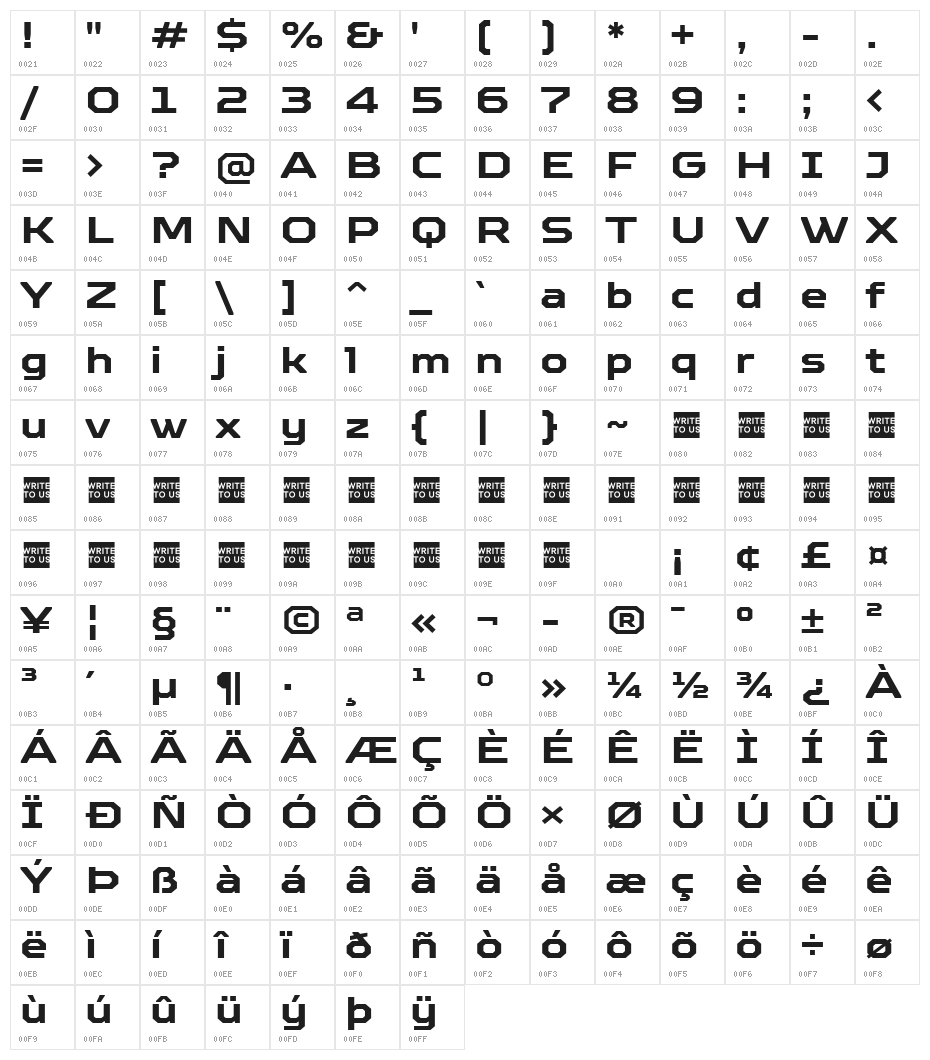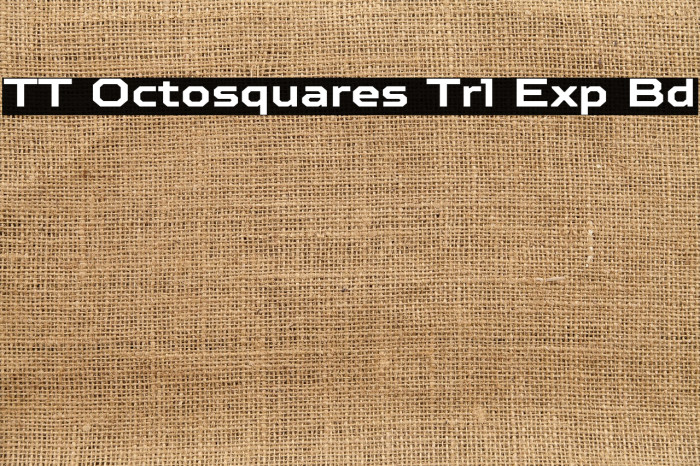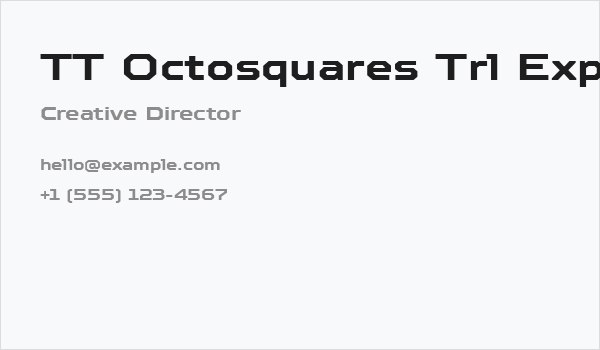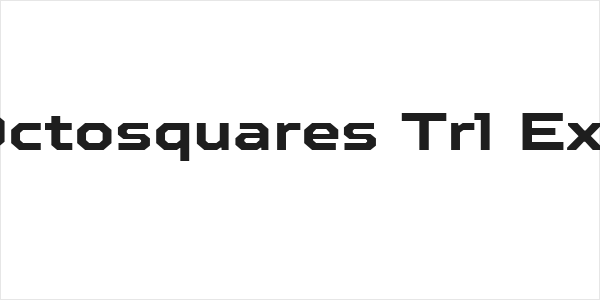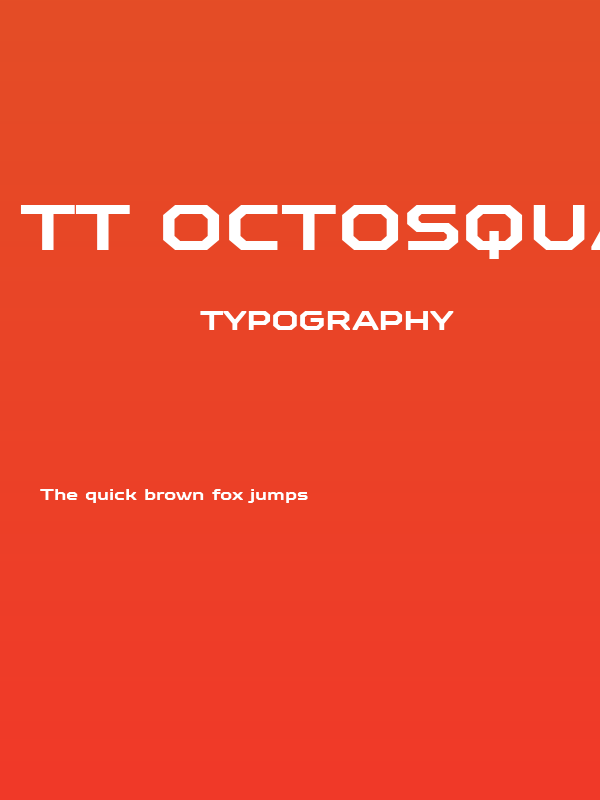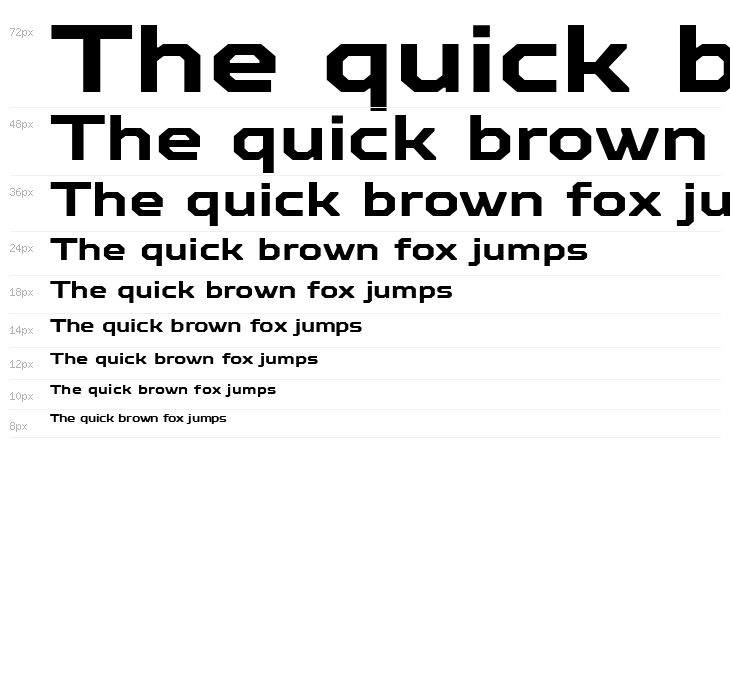
TT Octosquares Trl Exp Bd Font
TT Octosquares Trl Exp Bd Description
This font features a bold and geometric design with a distinct square-like structure. Each character is crafted with sharp angles and straight lines, giving it a futuristic and technical appearance. The uppercase and lowercase letters maintain a consistent style, emphasizing clarity and precision. Numbers and special characters are equally bold, ensuring uniformity across all glyphs. The overall design is modern and eye-catching, suitable for projects that require a strong visual impact.
| Proposed Projects | Ideal for technology branding, video game interfaces, and modern poster designs. |